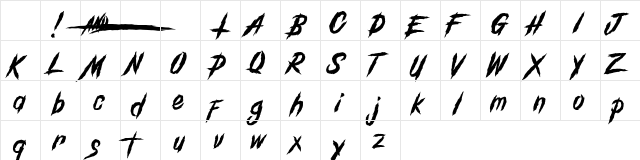
Complete GrindAndDeath_Demo Regular glyph index. Displaying only characters natively supported by GrindAndDeath_Demo Regular font.
GrindAndDeath_Demo carries an unsettling edge - its distorted letterforms are built to unsettle, perfectly suited to horror, Halloween, and dark creative work.
Font Pairing: Pair with a clean neutral sans-serif for body copy to let GrindAndDeath_Demo's character lead without overwhelming the composition.
Pro Tip: Use GrindAndDeath_Demo at larger display sizes for maximum impact. Consider generous tracking to let the disturbing character of each letterform breathe.